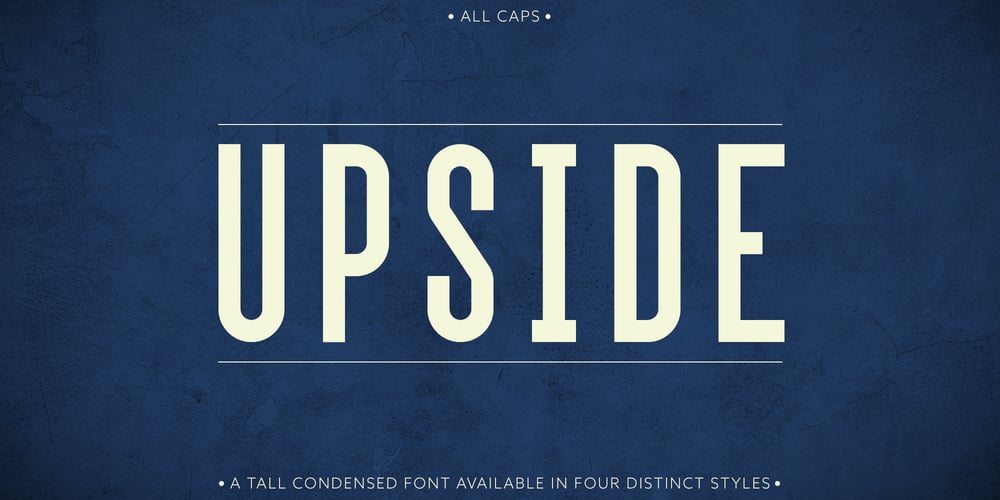
Upside Font Family was designed by Max Little and published by Little Fonts. Upside contains 4 styles and family package options. Upside is an all caps font. The design of the font is tied to historic golden ages gone by, but with a modern flair giving it a contemporary edge. It is a tall and condensed geometric sans serif, with four unique styles and appearances. Upside is a distinctive display font, perfect for headlines and headings across a range of formats such as graphic design posters, editorial pieces, or anything that needs that extra eye-catching touch.